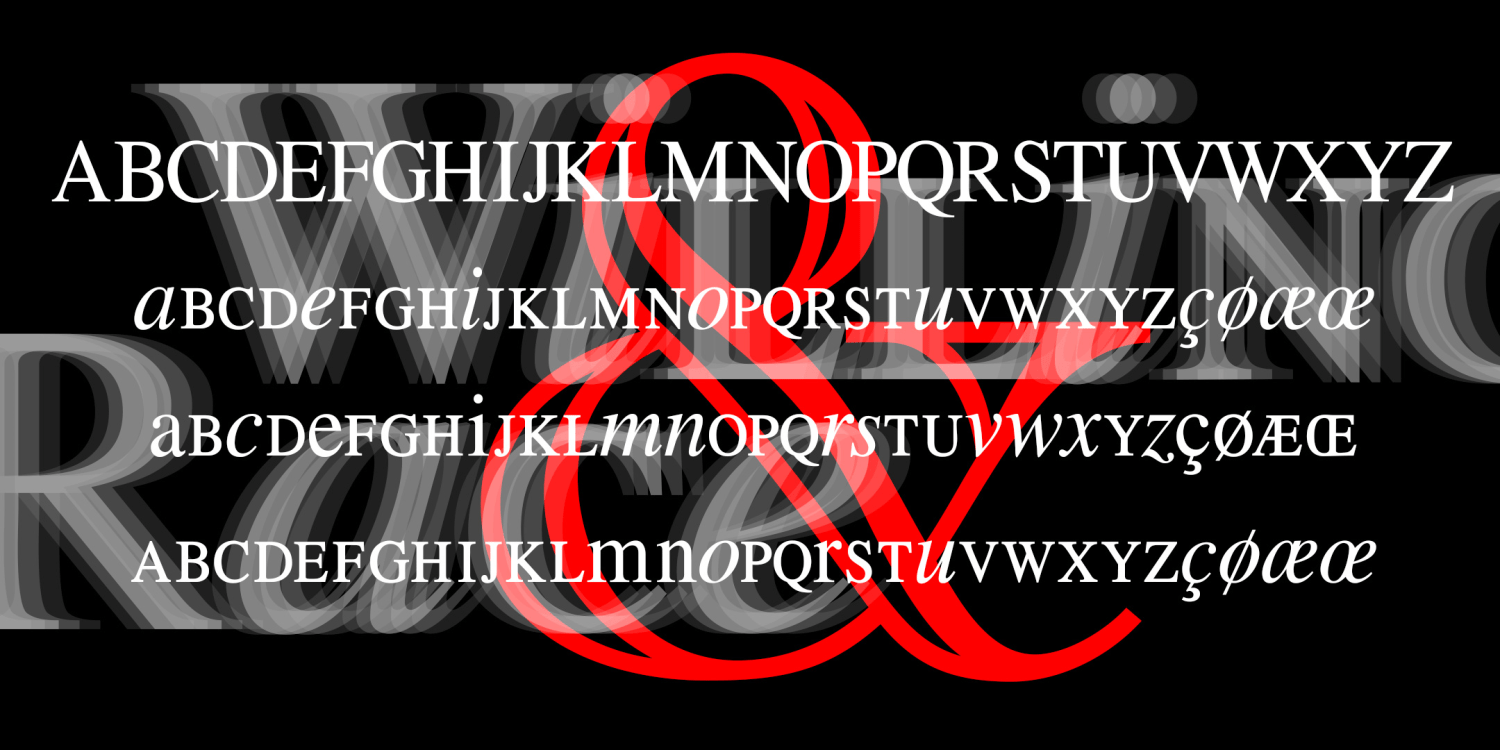
Willing Race
WILLING RACE was inspired by the opening credits of the classic TV show Will & Grace, originally designed by Number Seventeen. Like those, I’ve mixed large and small caps with roman and italic lowercase, all inspired by Times Roman. And the new Opentype font includes even more choices!
The Willing Race font family includes 237 glyphs.